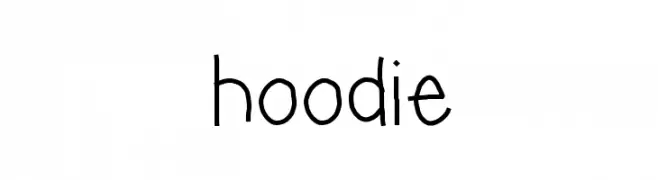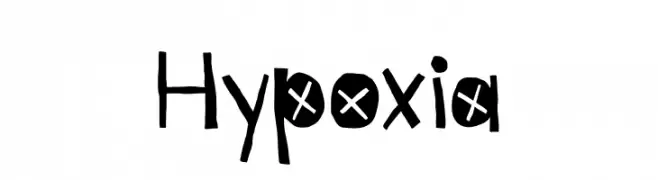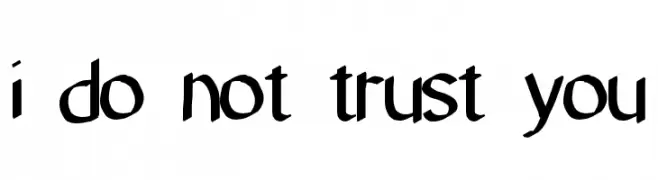
A playful, handwritten font with irregular strokes and a casual style.
A casual, handwritten font with a playful and approachable style.
A playful, handwritten font with a casual and friendly appearance.
A playful, hand-drawn font with bold, irregular characters and whimsical details.
A geometric, angular font with a modern, digital aesthetic.
A bold, brush-like font with dynamic strokes and a playful, artistic style.
A clean, modern monospaced typeface ideal for coding and technical documentation.
A bold, monospaced font with a modern, geometric design.
A bold, italic monospaced font with a modern and structured appearance.